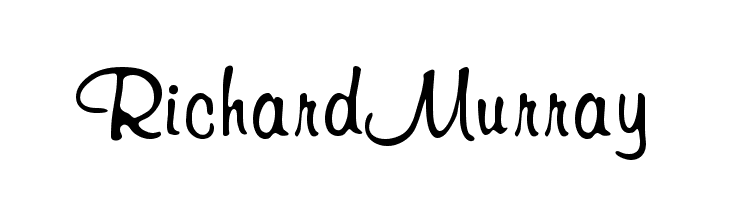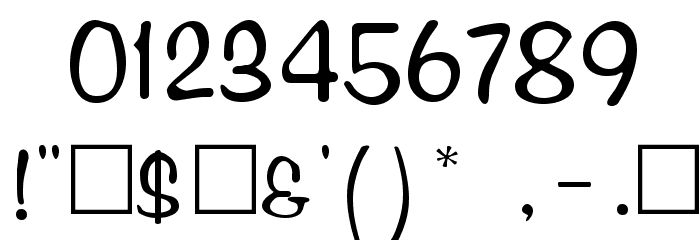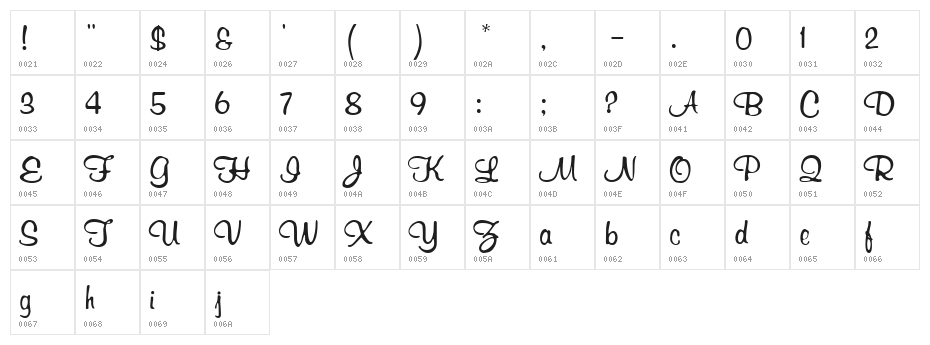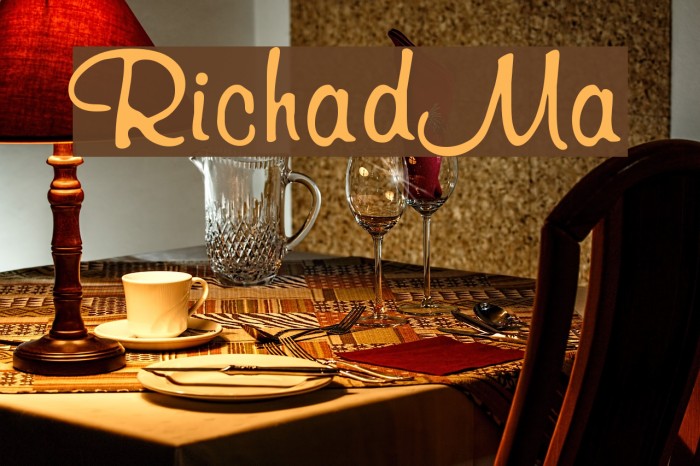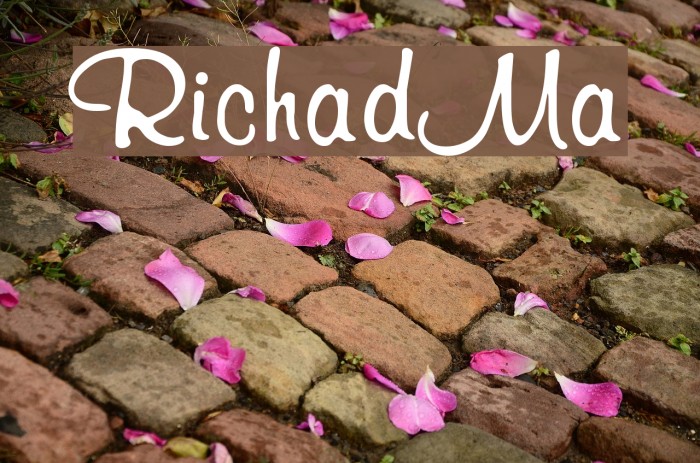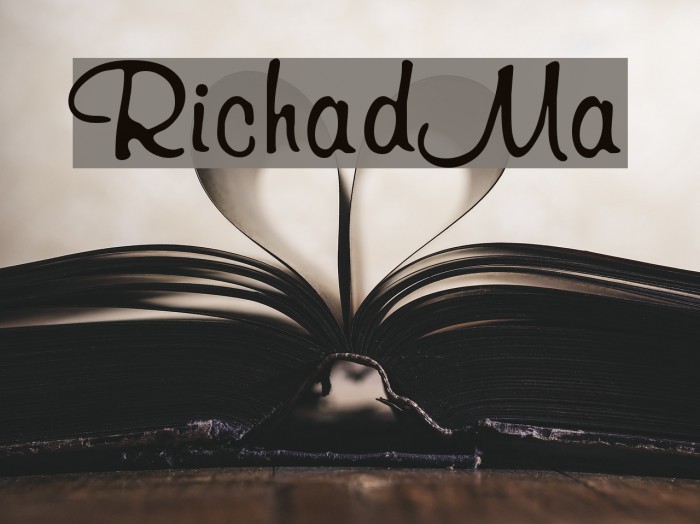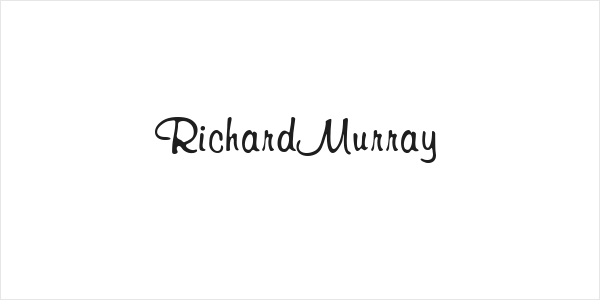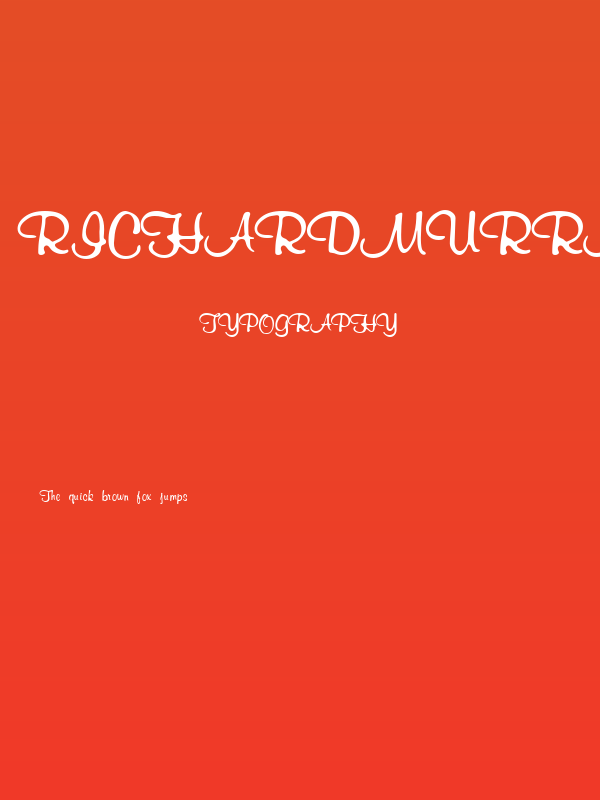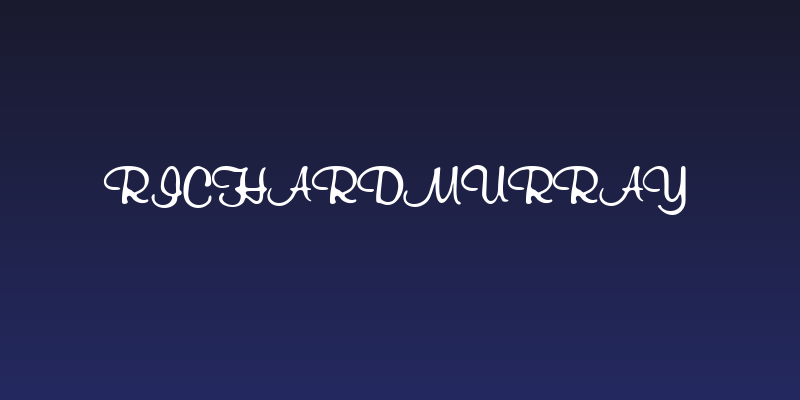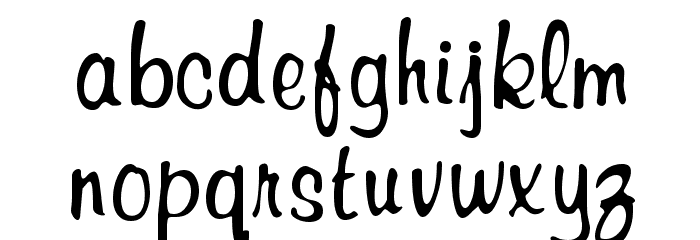
RichardMurray Font
RichardMurray Description
This font features a playful and whimsical style with a handwritten appearance. The uppercase letters are characterized by their flowing, cursive-like strokes, while the lowercase letters maintain a consistent, rounded form that adds to the font's charm. The numerals are bold and clear, ensuring readability. Special characters are integrated seamlessly, maintaining the overall aesthetic. The font's unique style makes it suitable for creative and informal projects, offering a sense of personality and flair.
| Overall Style | Whimsical |
| Proposed Projects | Ideal for greeting cards, children's books, playful branding, and creative invitations. |